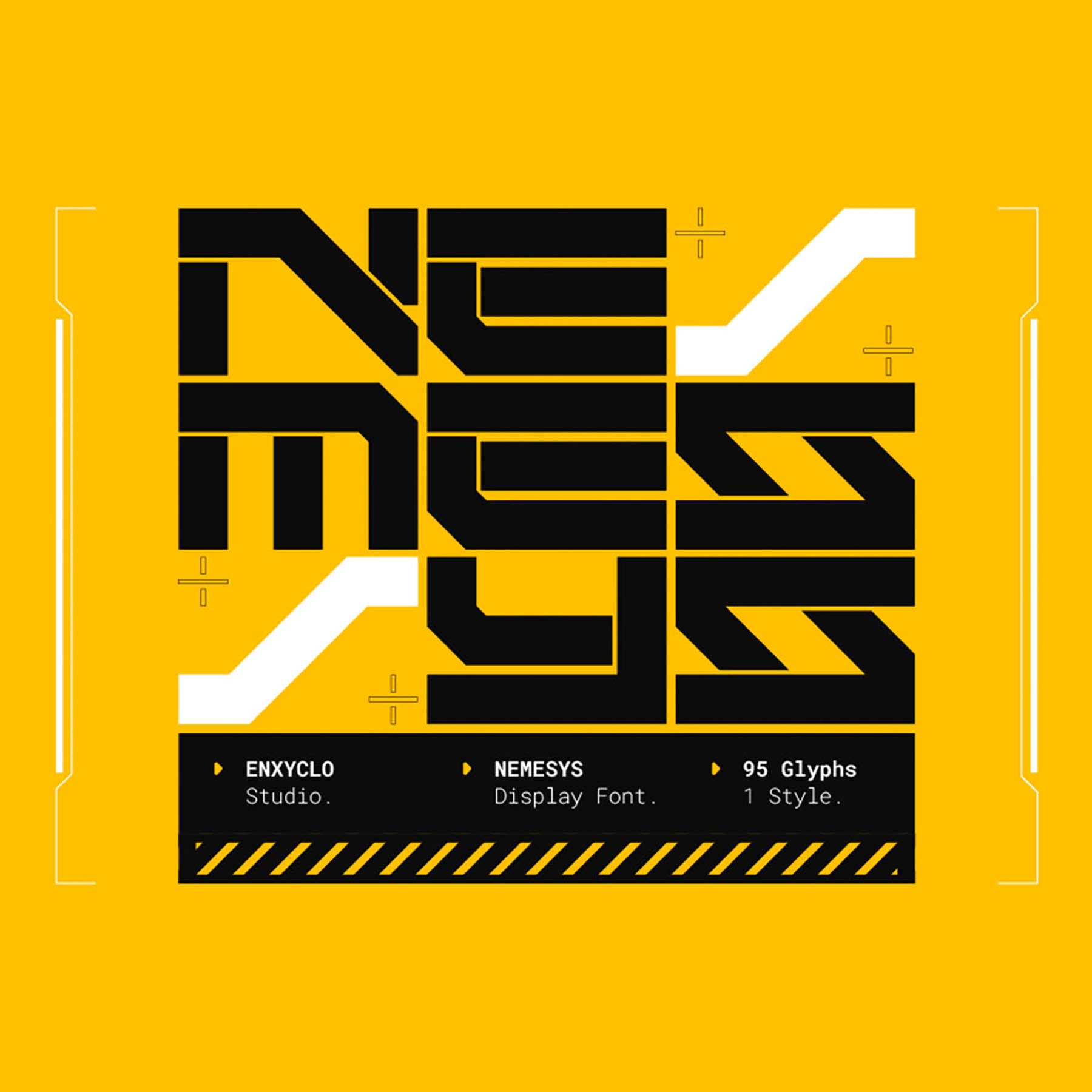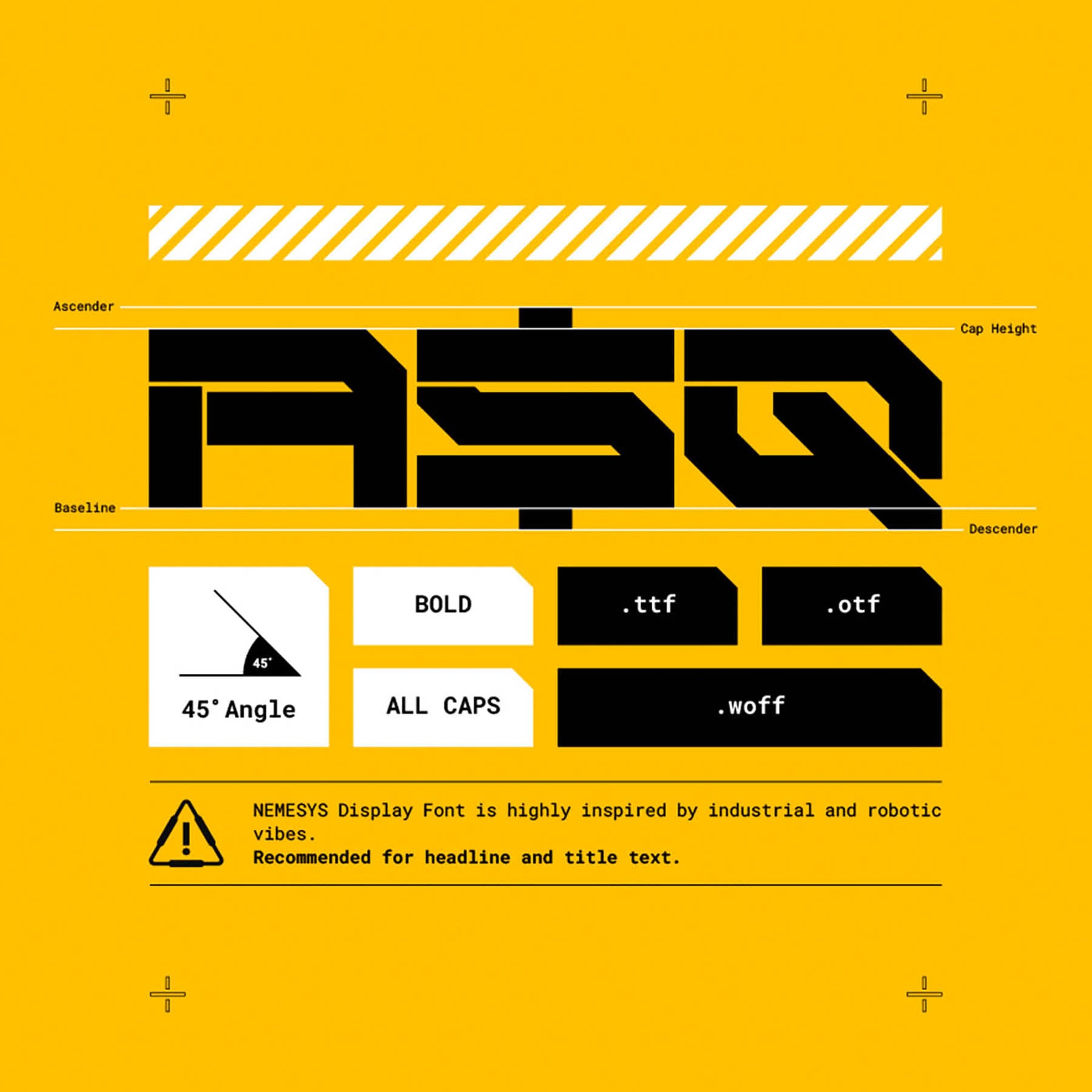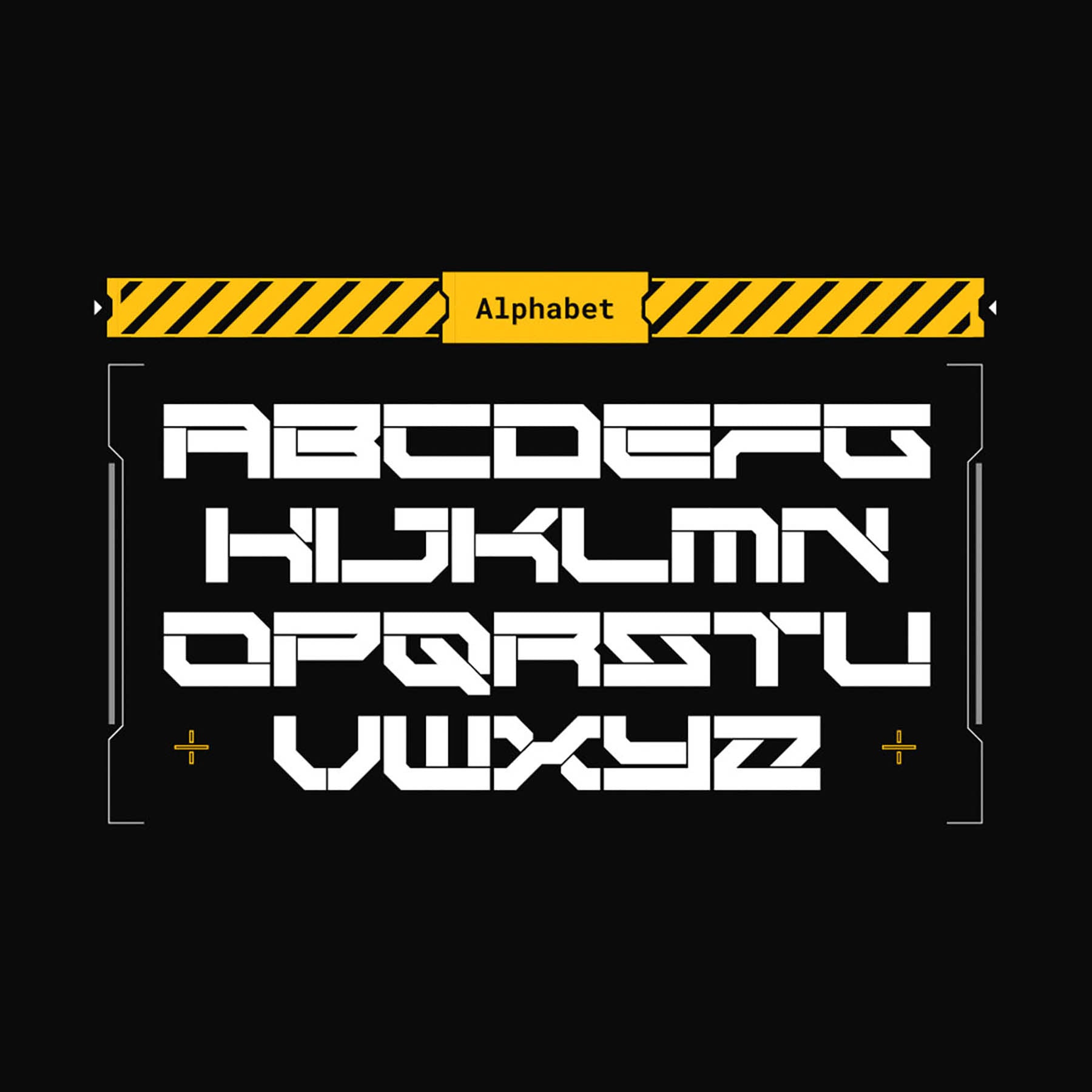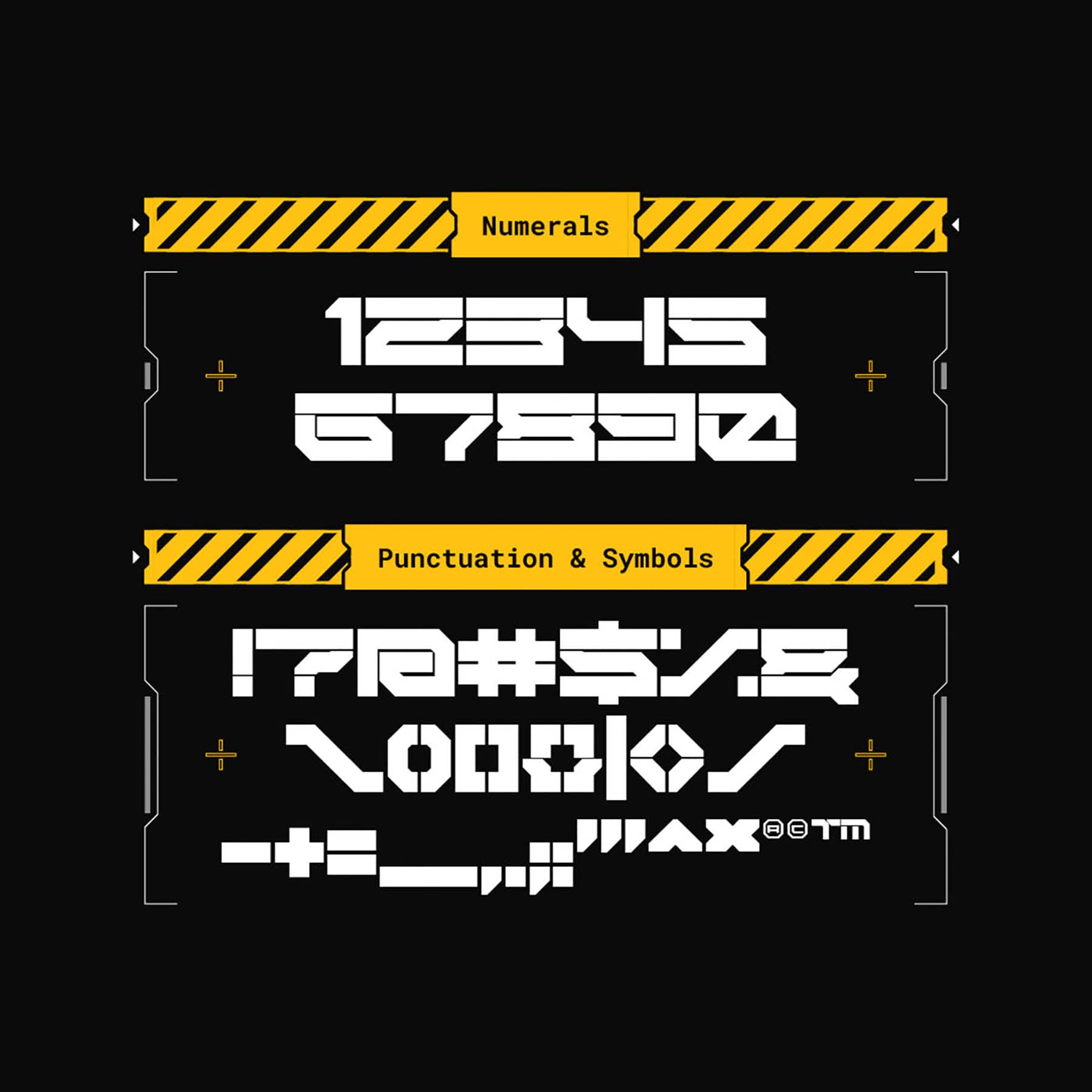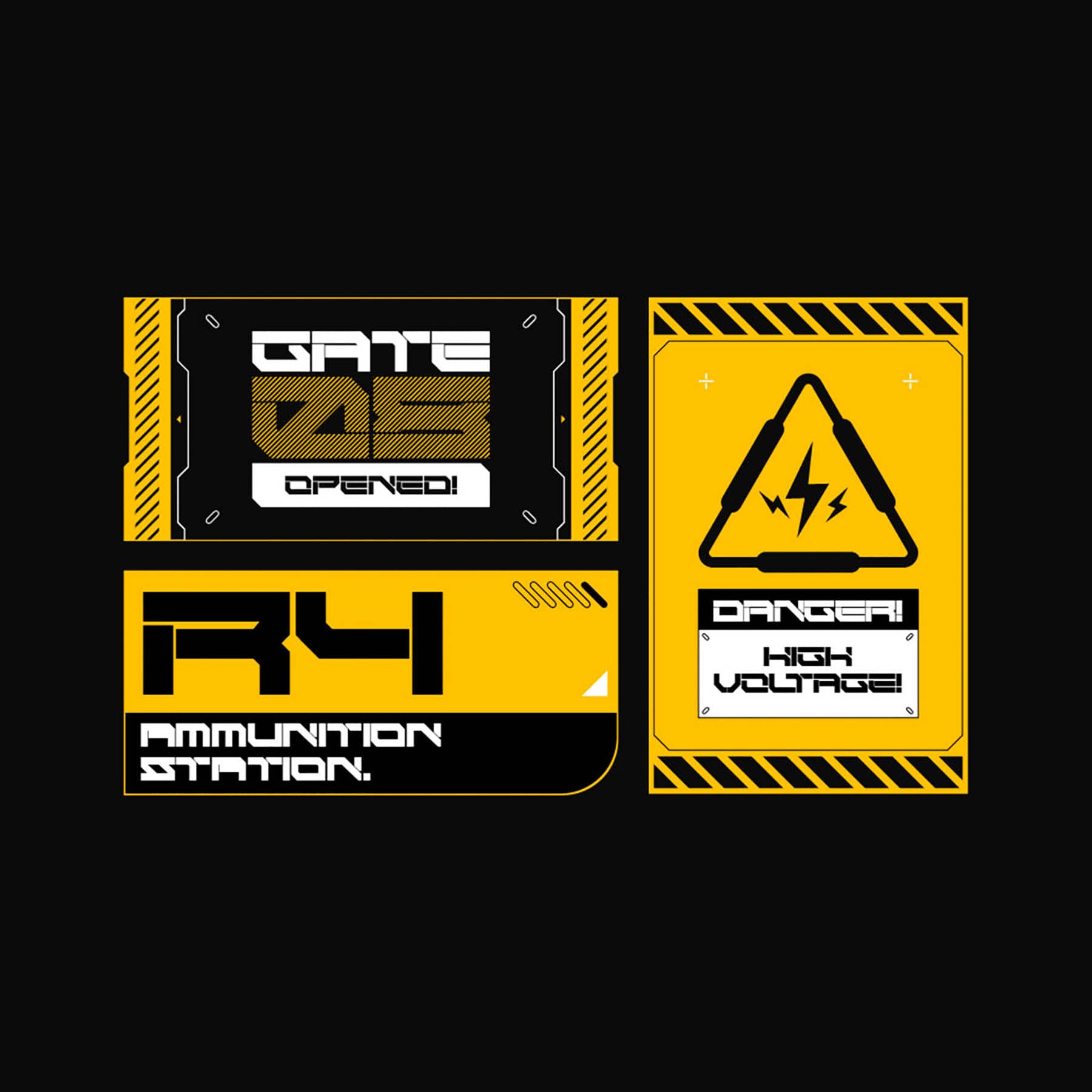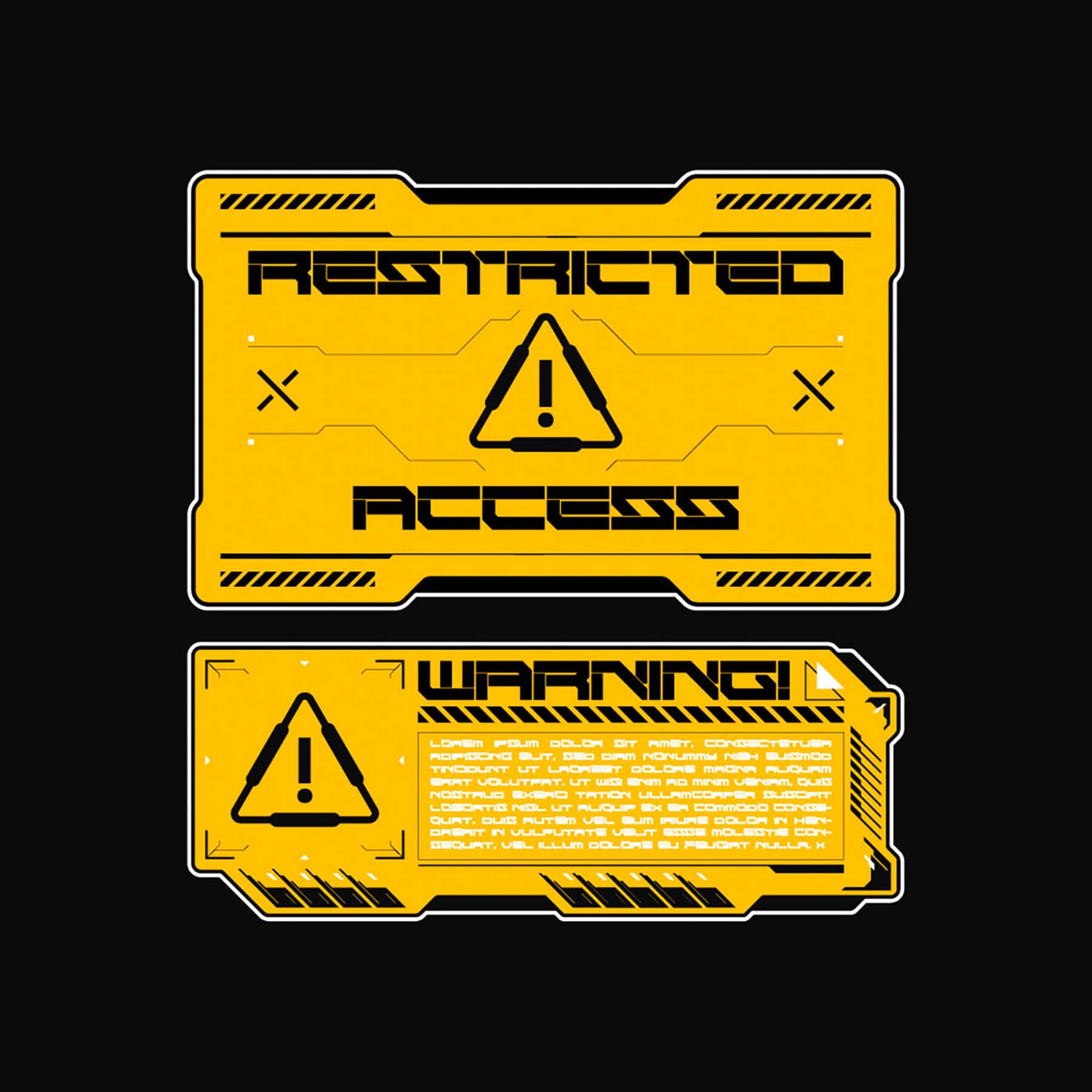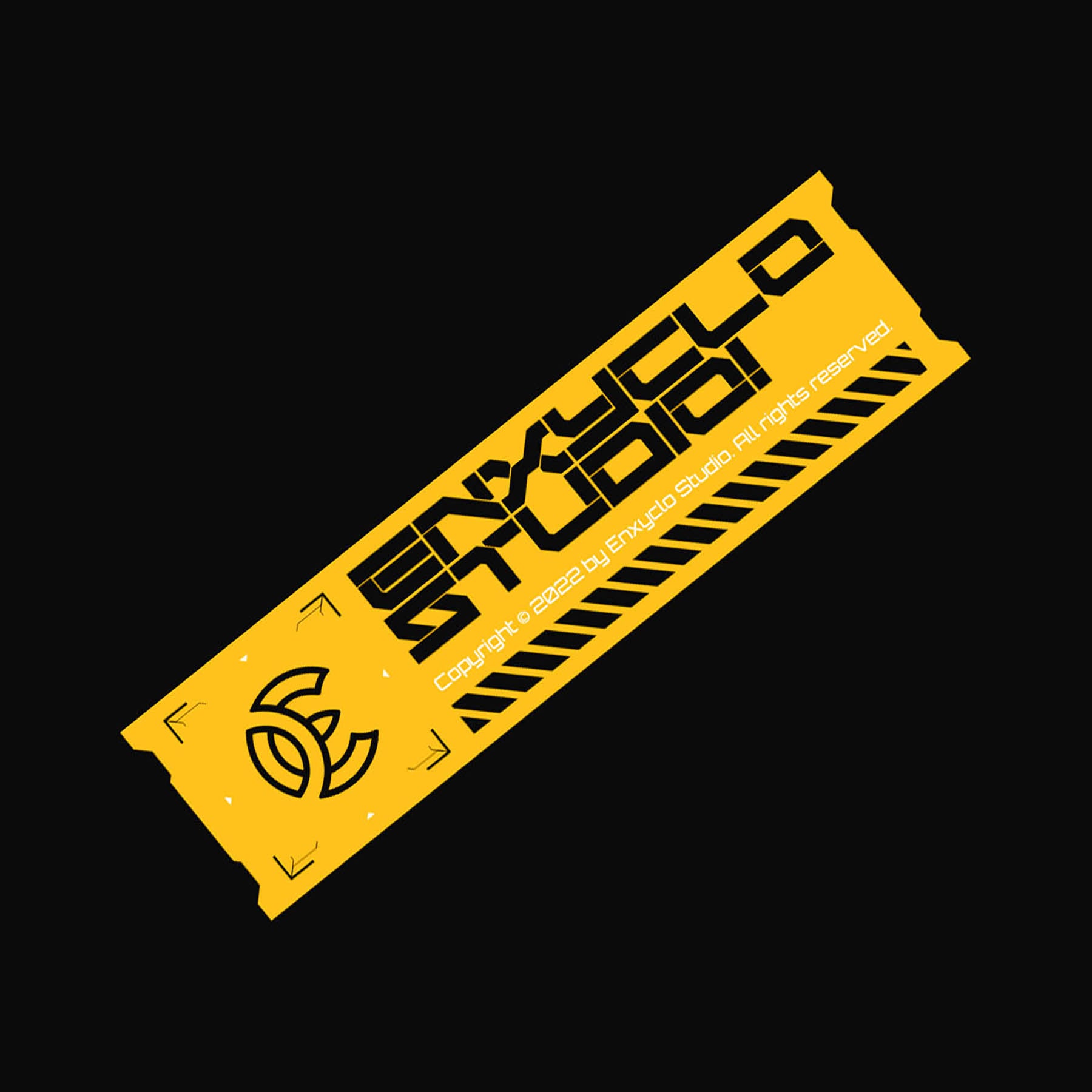
Enxyclo Studio
NEMESYS Display Font
Unveiling NEMESYS: a cutting-edge cyberpunk display font that embodies the essence of the future. Drawing deep inspiration from industrial and robotic aesthetics, its typeface design injects unparalleled strength and inspiration into your project. Tailored for headlines, billboards, magazines, websites, posters, and more, NEMESYS infuses a dynamic touch into every context.
Ideal for titles, branding, thumbnails, t-shirt designs, streetwear concepts, creative logos, and any venture seeking a futuristic edge. This remarkable font elevates your project, ensuring it stands apart in a crowded landscape. Embrace the possibilities of this stunning futuristic display font – it's your key to setting new standards. Witness the previews above for a glimpse into how this font can reshape your creative vision.